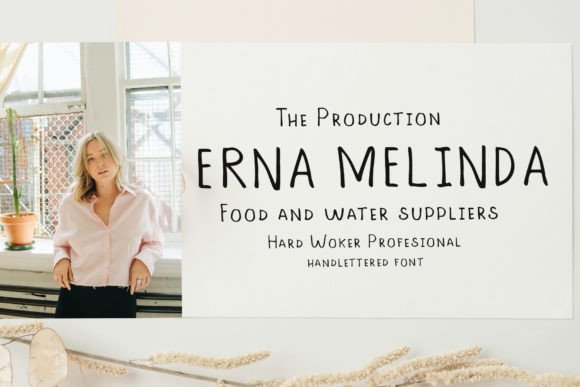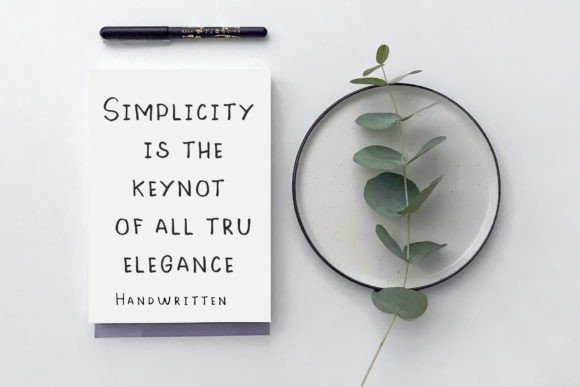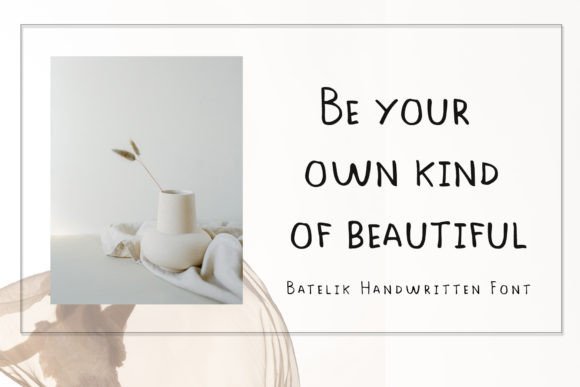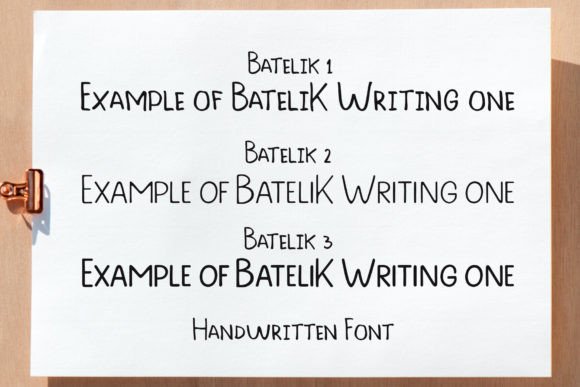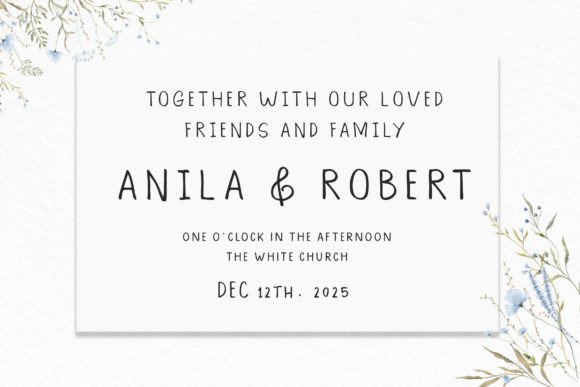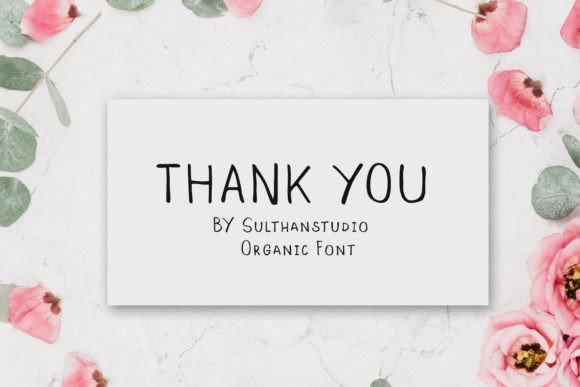
Batelik Font: A Modern and Minimalist Handwritten Font
Are you looking for a unique and stylish font to add a personal touch to your designs? Look no further than the Batelik Font! This beautiful handwritten font is perfect for designers and crafters who want to add a touch of modernity and sophistication to their work.
What is Batelik Font?
Batelik Font is a carefully crafted handwritten font that is inspired by natural handwriting on paper using a pen. The font is created by turning handwriting into three distinct styles, including regular Batelik, which is the original or natural handwriting without any cleaning or tidying up.
The result is a font that is incredibly modern and minimalist, with a unique charm that is sure to capture the attention of your audience. The font is perfect for a wide range of design projects, from branding and packaging to social media graphics and blog posts.
Key Features of Batelik Font
- Handwritten style: Batelik Font is a genuine handwritten font that captures the imperfections and uniqueness of natural handwriting.
- Modern and minimalist: The font has a clean and simple design that makes it perfect for modern designs.
- Three distinct styles: Batelik Font comes in three styles, including regular, clean, and tidied up versions.
- Easy to read: The font is highly legible, making it perfect for body text and headlines.
Why Use Batelik Font?
There are many reasons why designers and crafters love Batelik Font. Here are just a few:
- Add a personal touch: Batelik Font adds a personal and human touch to your designs, making them more relatable and engaging.
- Stand out from the crowd: The font’s unique style ensures that your designs will stand out from the crowd and grab attention.
- Versatile: Batelik Font can be used for a wide range of design projects, from digital to print.
Here are some tips and tricks for getting the most out of Batelik Font:
- Experiment with sizes: Try using the font in different sizes to create visual interest and hierarchy.
- Mix and match: Combine Batelik Font with other fonts to create a unique and stylish typography.
- Pay attention to color: Choose colors that complement the font and enhance the overall design.
Batelik Font is a stunning handwritten font that is perfect for designers and crafters who want to add a touch of modernity and sophistication to their work. With its unique style, versatility, and ease of use, Batelik Font is sure to become a favorite in your design toolkit. So why wait? Download Batelik Font today and start creating amazing designs!